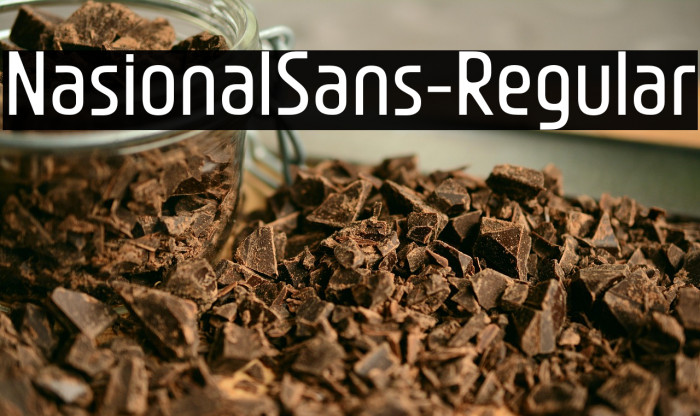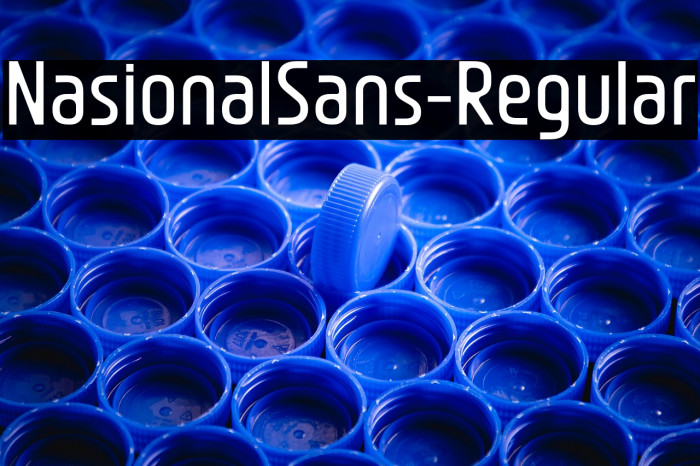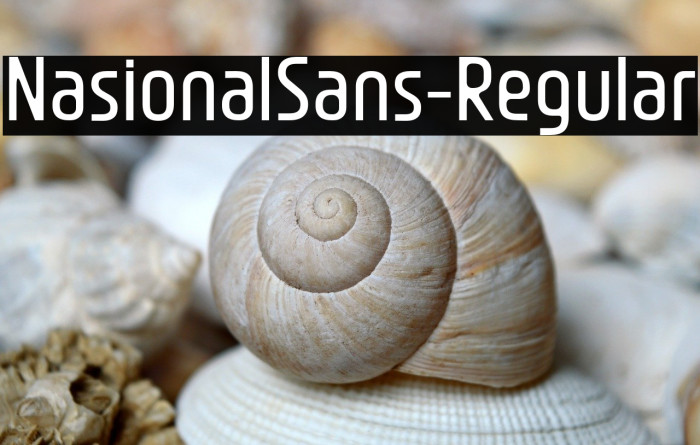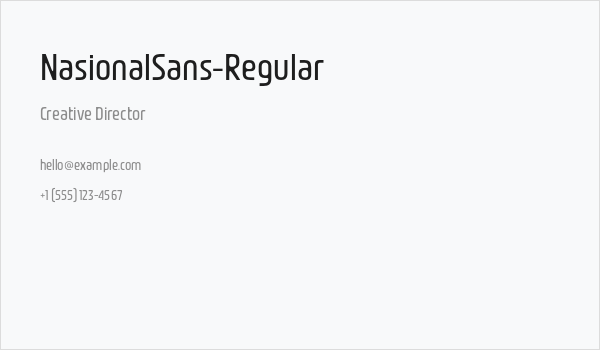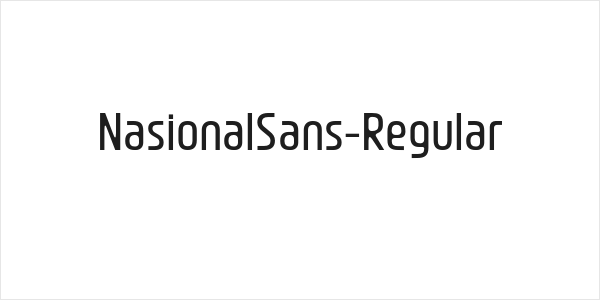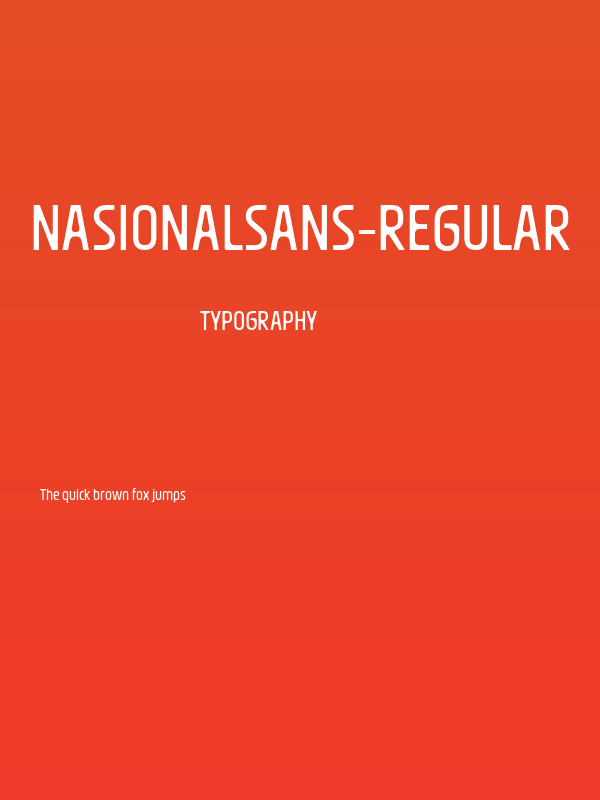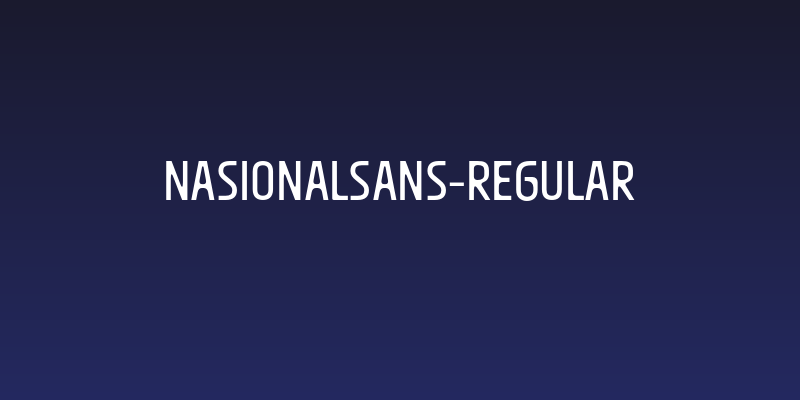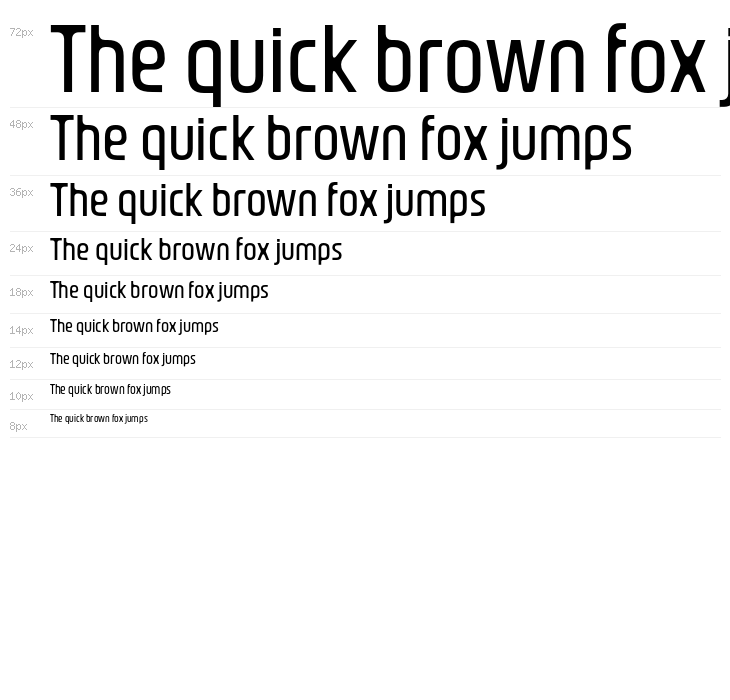
NasionalSans-Regular Font
NasionalSans-Regular Description
This font features a clean and modern sans-serif style, characterized by its geometric shapes and uniform stroke widths. The uppercase letters are bold and slightly condensed, giving a strong and assertive appearance. The lowercase letters maintain a consistent height, contributing to a harmonious and balanced look. Numbers are clear and legible, making them suitable for various applications. Special characters are well-integrated, ensuring versatility in design projects. The overall design is sleek and contemporary, making it ideal for modern branding and digital interfaces.